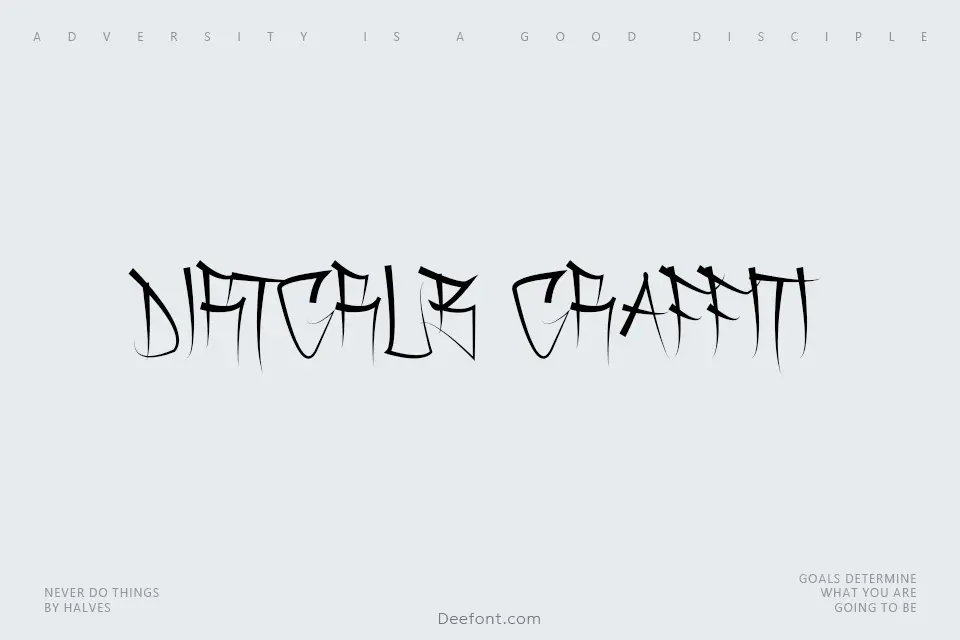
Dirtgrub Graffiti Font
Dirtgrub Graffiti is a striking Script typeface that captures the raw energy and rebellious spirit of urban street art. Originally created in 2014, this distinctive graffiti font features bold, angular letterforms with a gritty aesthetic that’s perfect for headline designs, posters, and creative projects demanding visual impact. The font combines urban style with playful character forms, making it an excellent choice for graffiti-inspired typography and eye-catching visual communication. With its unique graffiti personality and regular weight, it delivers authenticity to any design that requires an edgy, contemporary feel.